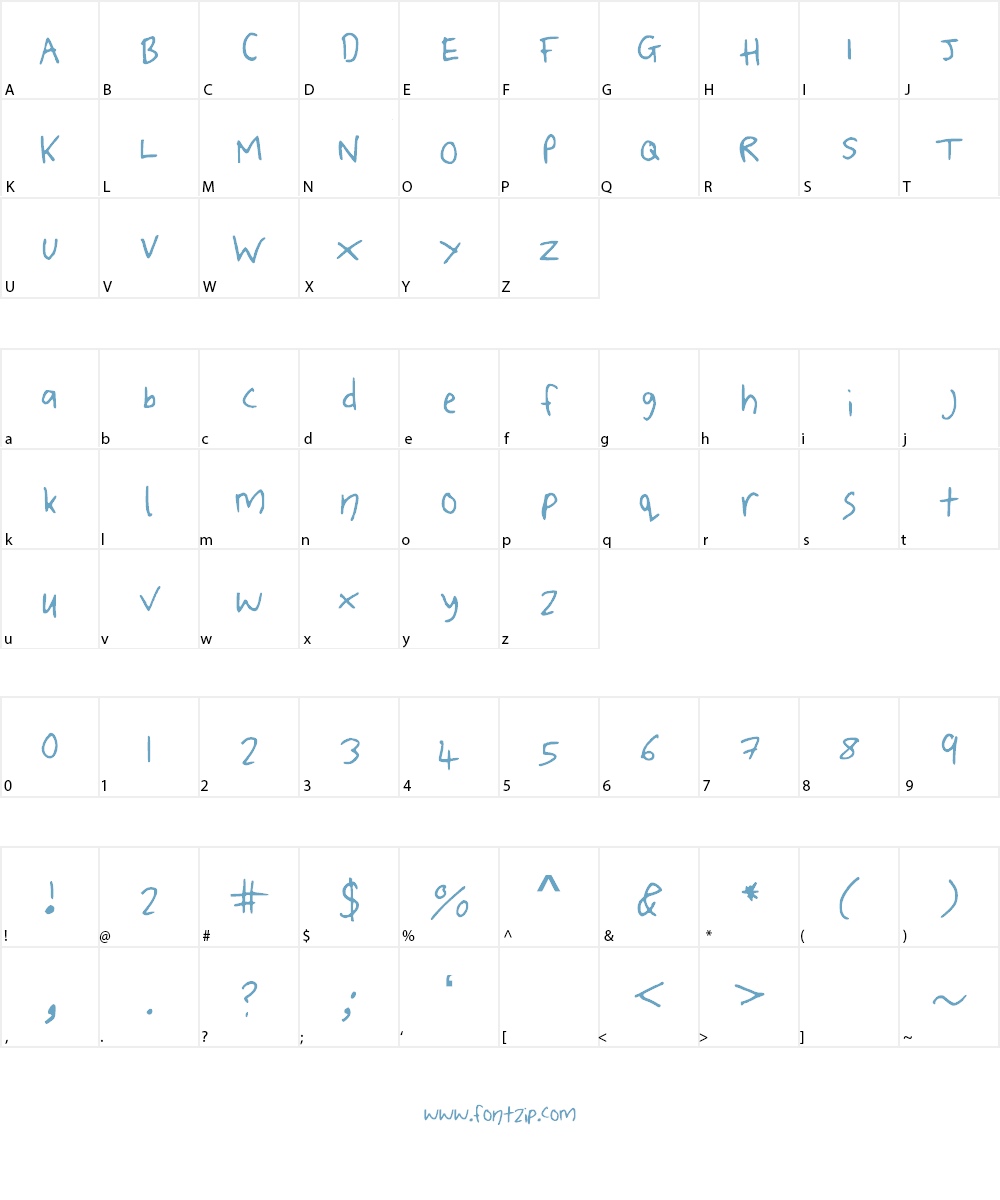
Hand written font created by me, Toni Sian Williams - Children's book illustrator also specialising in business branding and marketing through visual communication. visit http://tonisianwilliams.com for more about me... and check out my Waterstones No.1 bestseller children's book - http://tonisianwilliams.com/#/wrekingiant/4580801904